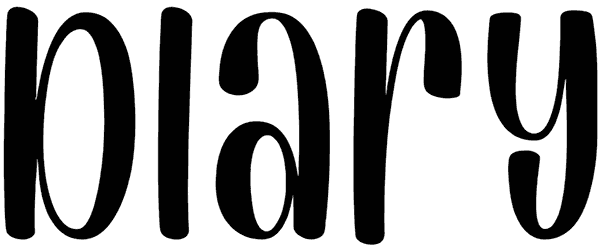
Diary Font
To get further steps above in designing high-end graphic content, including posters, gift cards, greeting cards, invitations, and product packaging, you should never overlook a magical script font such as Diary.
Due to the curved style of its characters, this feminine font has the real ability to evoke a sense of personalization, playfulness, and sincerity in the audience’s minds. So we really invite you to try its lovely mixture of lowercase and uppercase letters in your editorial projects.